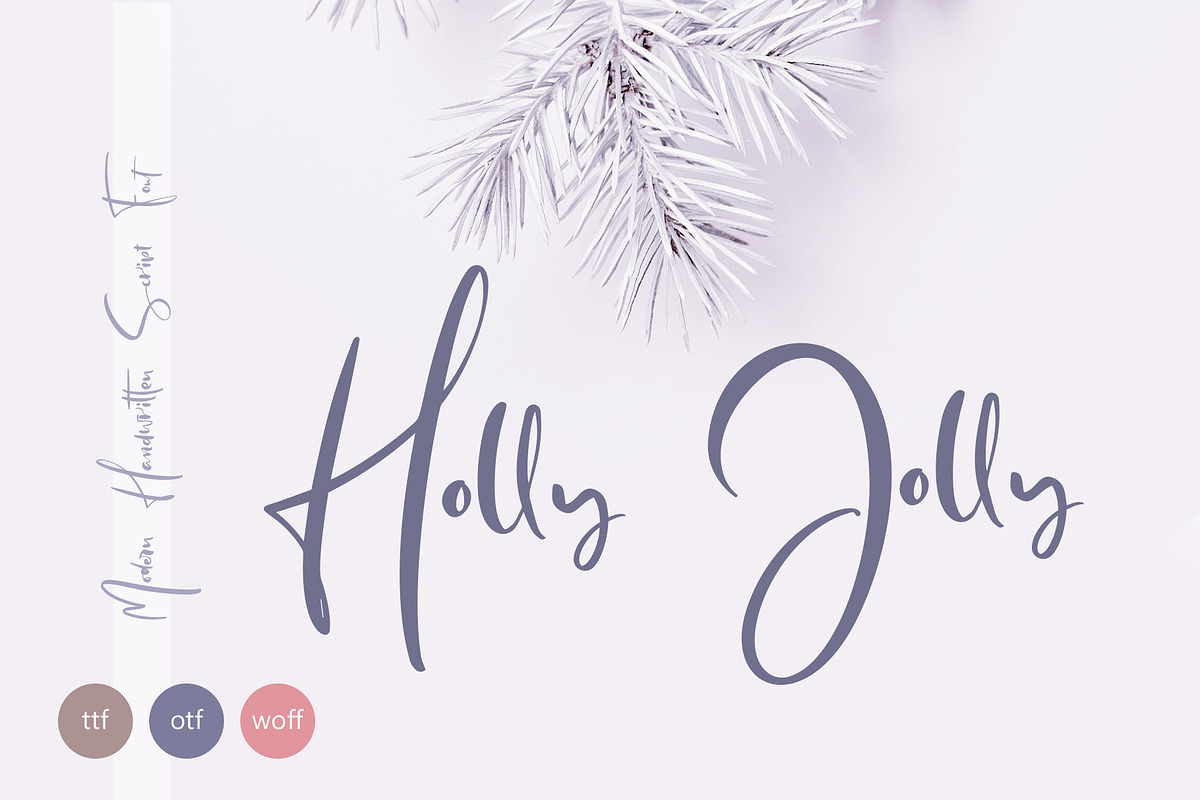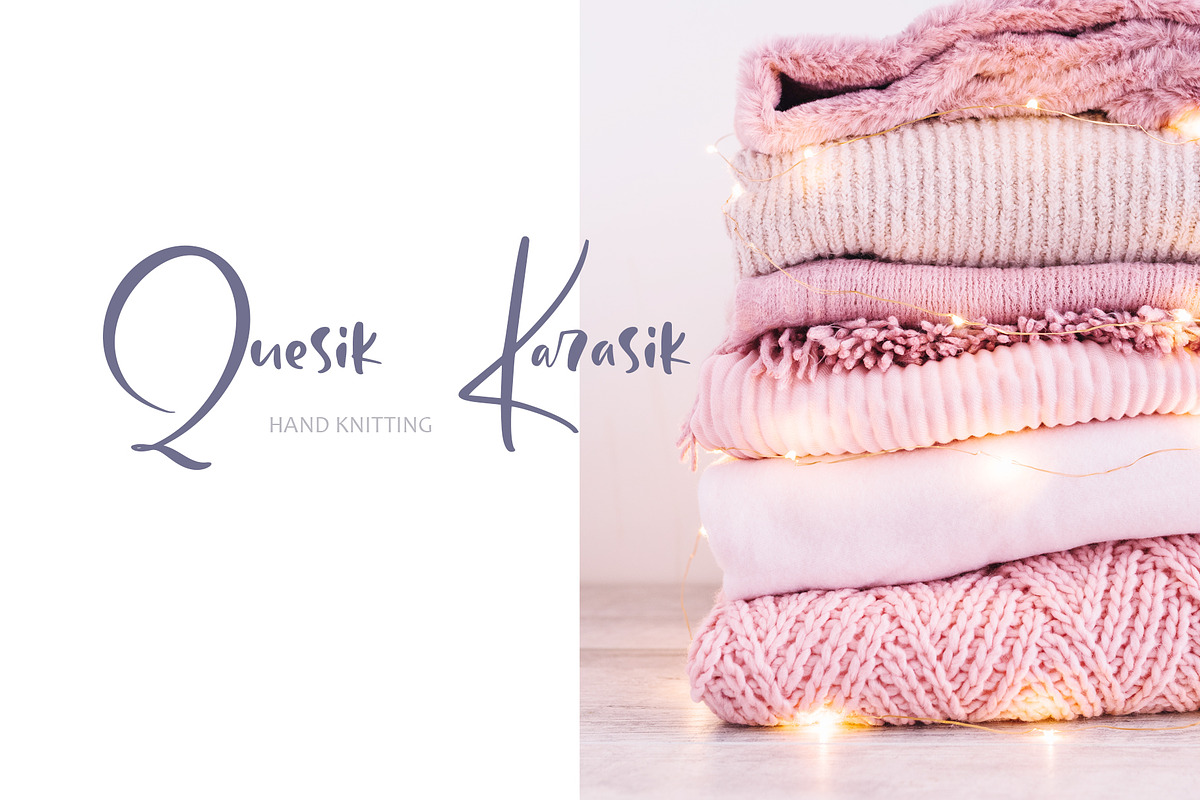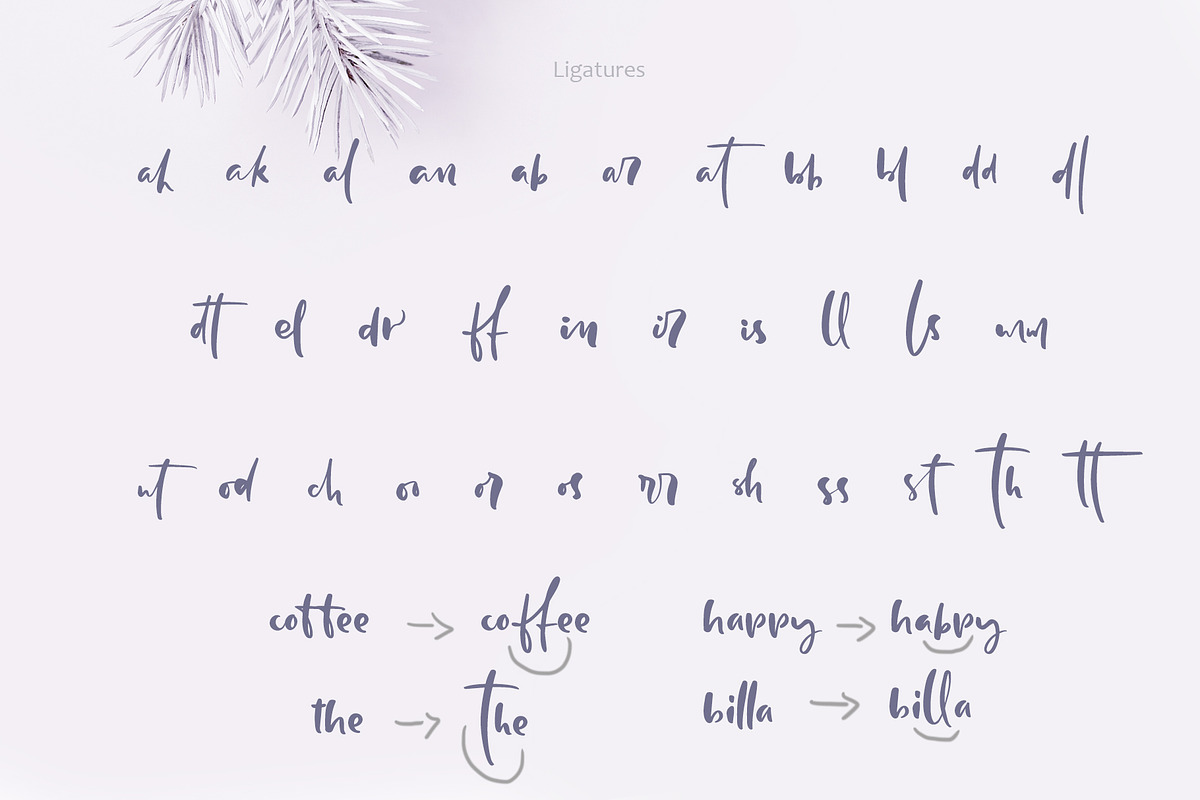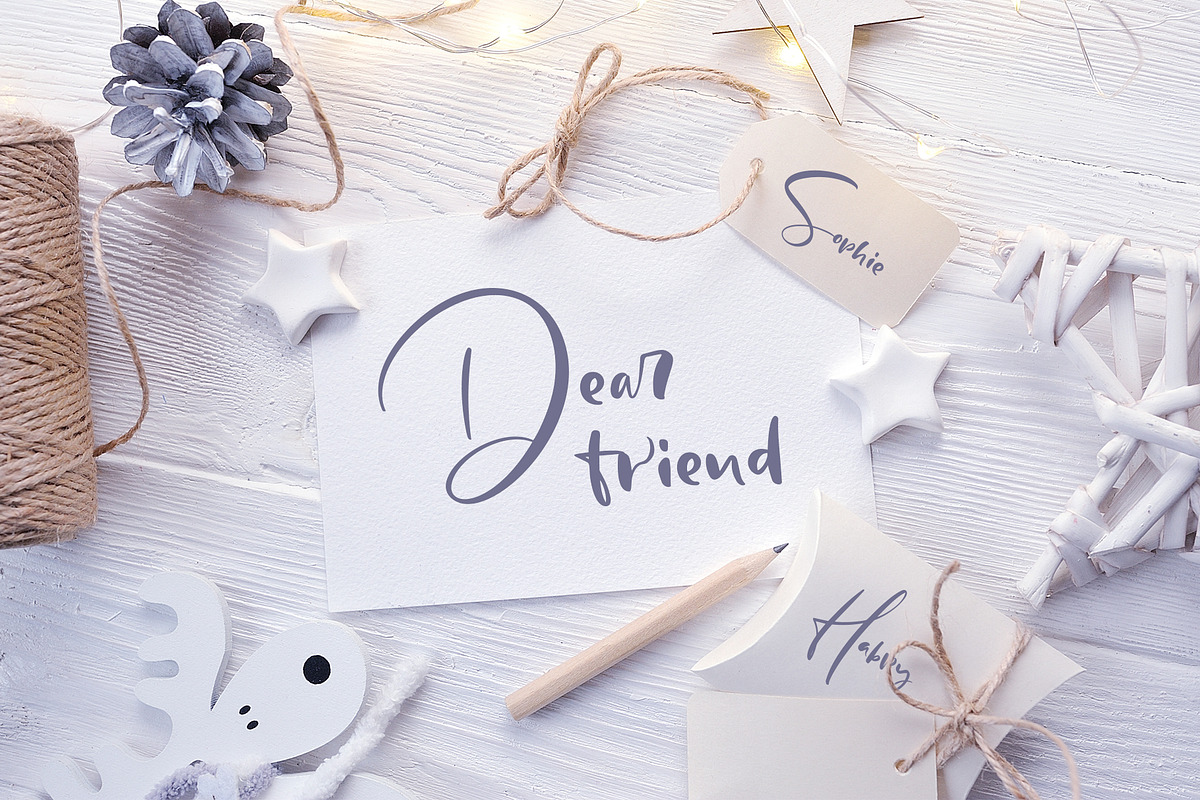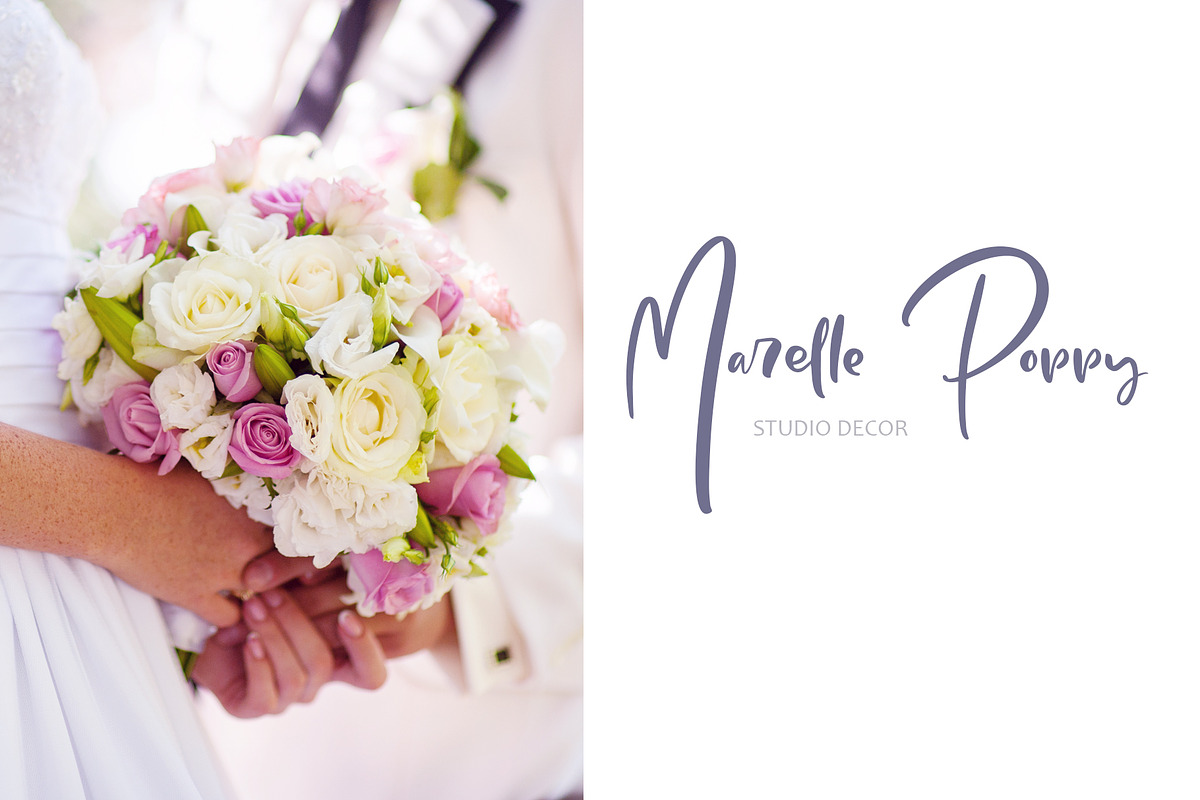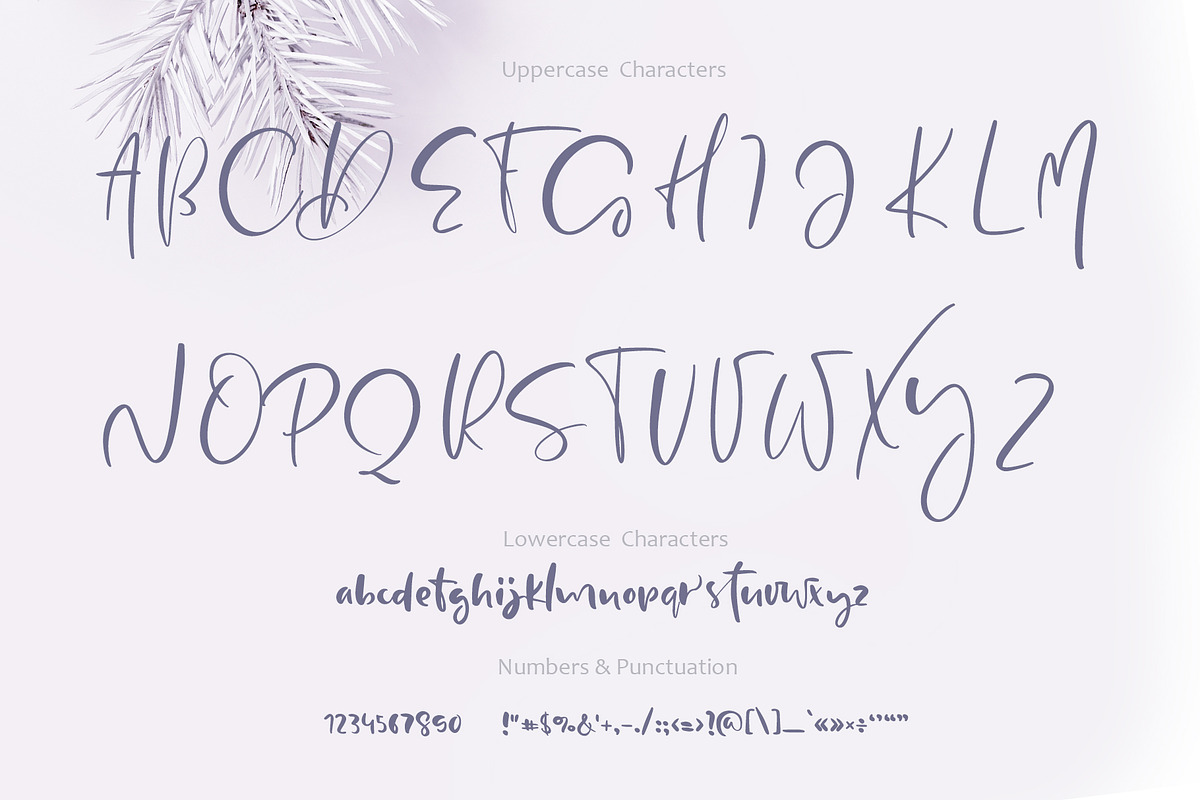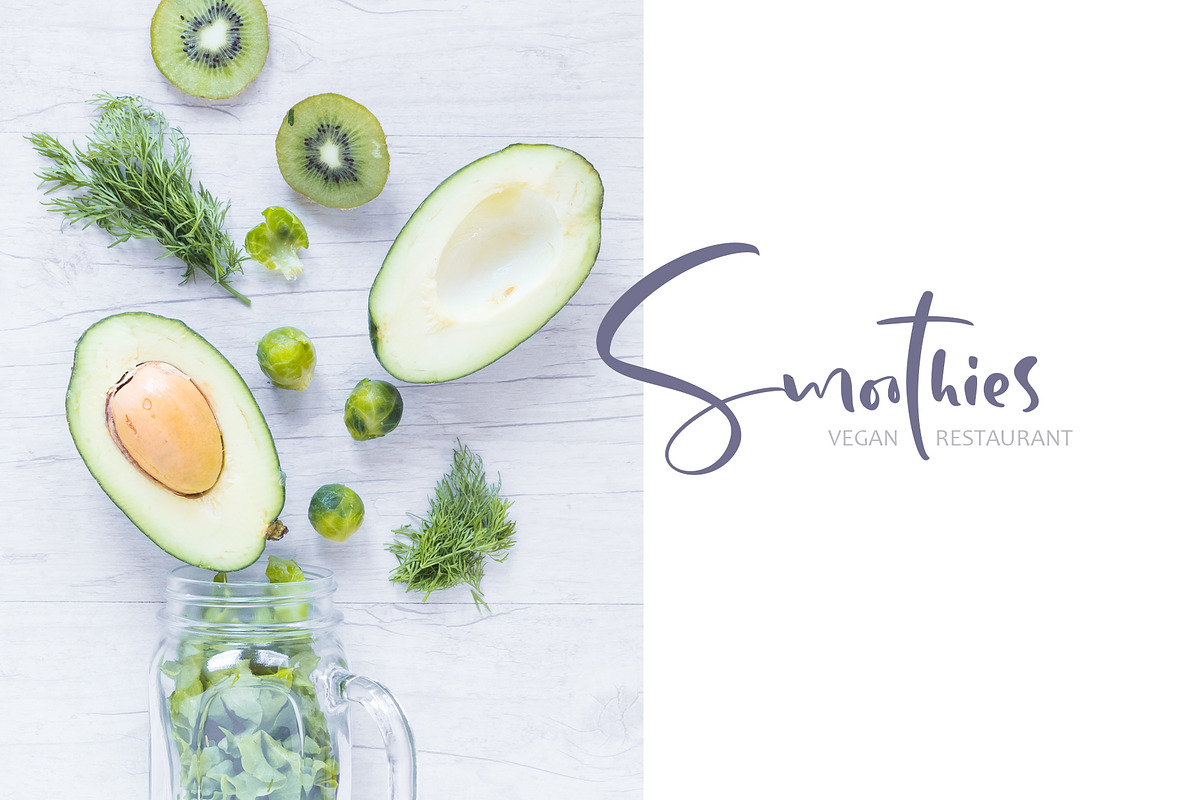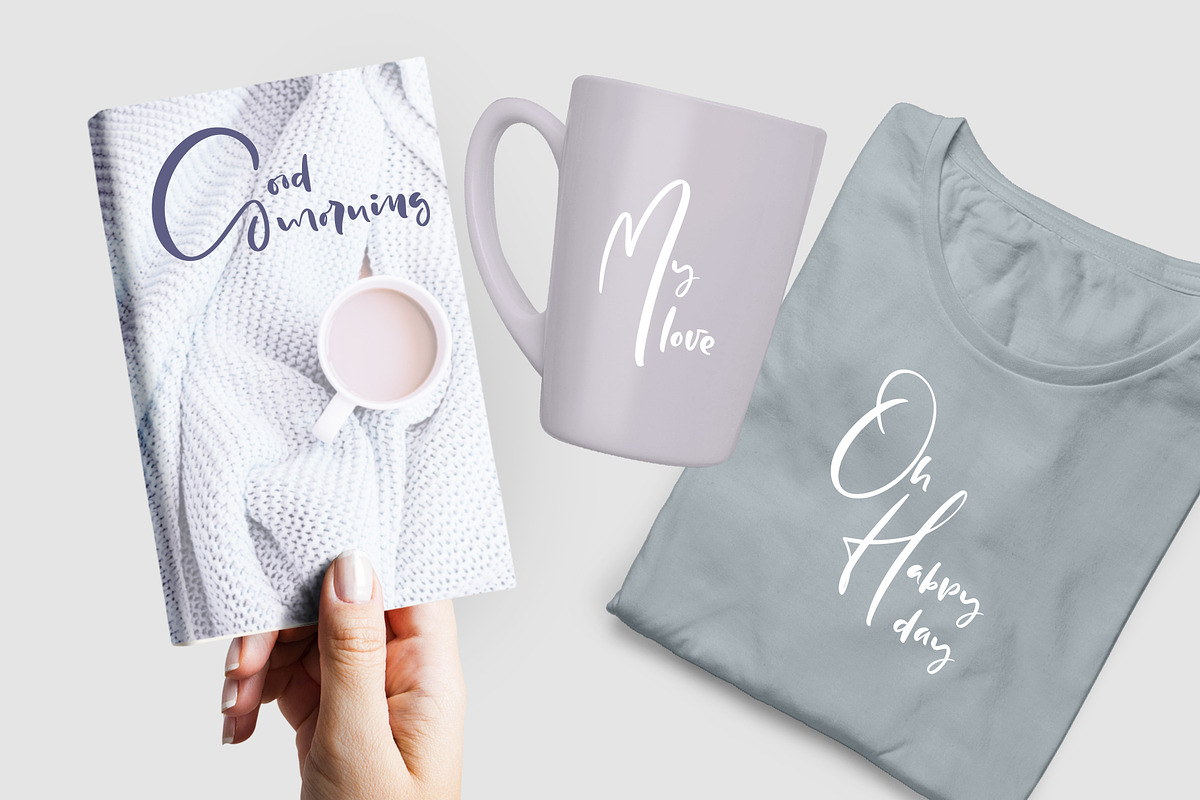
Holly Jolly Hand Drawn Font
Unique handmade calligraphic Holly Jolly Hand Drawn Font is modern display font with alternative flourish lowercases, alternative uppercases and ligatures. Holly Jolly Hand Drawn Font is beautiful instrument for designers, blogers and everybody who loves handwritting calligraphy, for fans of puzzles and flowery flourish whorls and other people, who loves beauty and elegance. Help to you realize your dreams and design ;)
Titles and script text for wedding albums, logo, icon, hand drawn phrases or quotes for greeting cards (Christmas, Valentine`s Day, Mother`s Day, Easter, Birthday and other holidays), calligraphy photo overlay, short phrases, gift shops tag, presentation in social media Pinterest or Instagram.